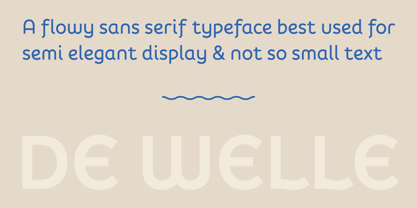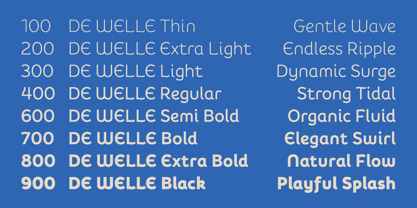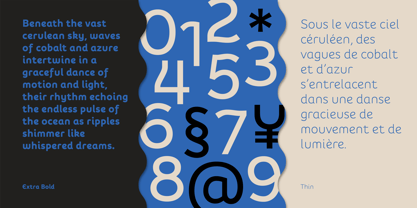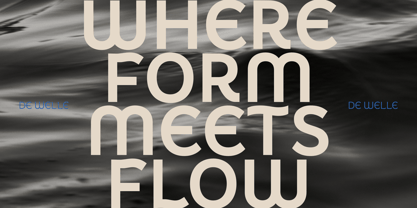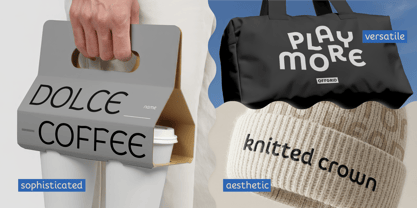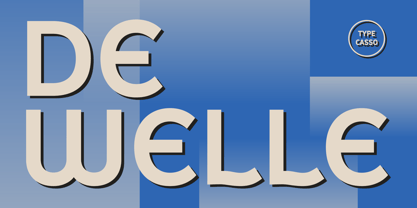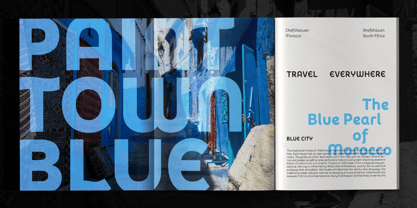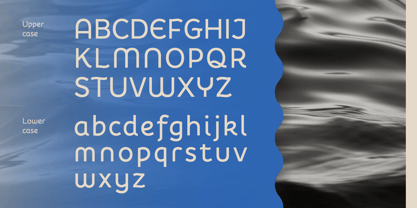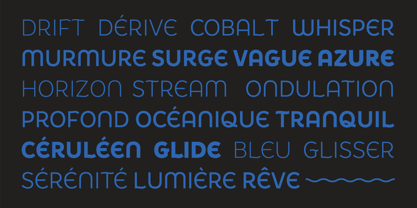
De Welle
by TYPECASSO
The De Welle Font Family was designed by Venny Setiawan and published by TYPECASSO. De Welle contains 9 styles and family package options. More about this family
De Welle is a flowy sans serif typeface, featuring wave-inspired forms as its key design element. This wave form not only adds a distinctive visual identity but also informs the overall design system, resulting in a typographic style that is organic and fluid, also highly adaptable for both display and mid-size text applications. Its smooth, flowing curves bring a sense of harmonious rhythm, creating a look that's both fresh and approachable.
It comes in 8 weights, supports multiple languages, and includes a variable font, giving you the freedom to adapt effortlessly across diverse design needs.